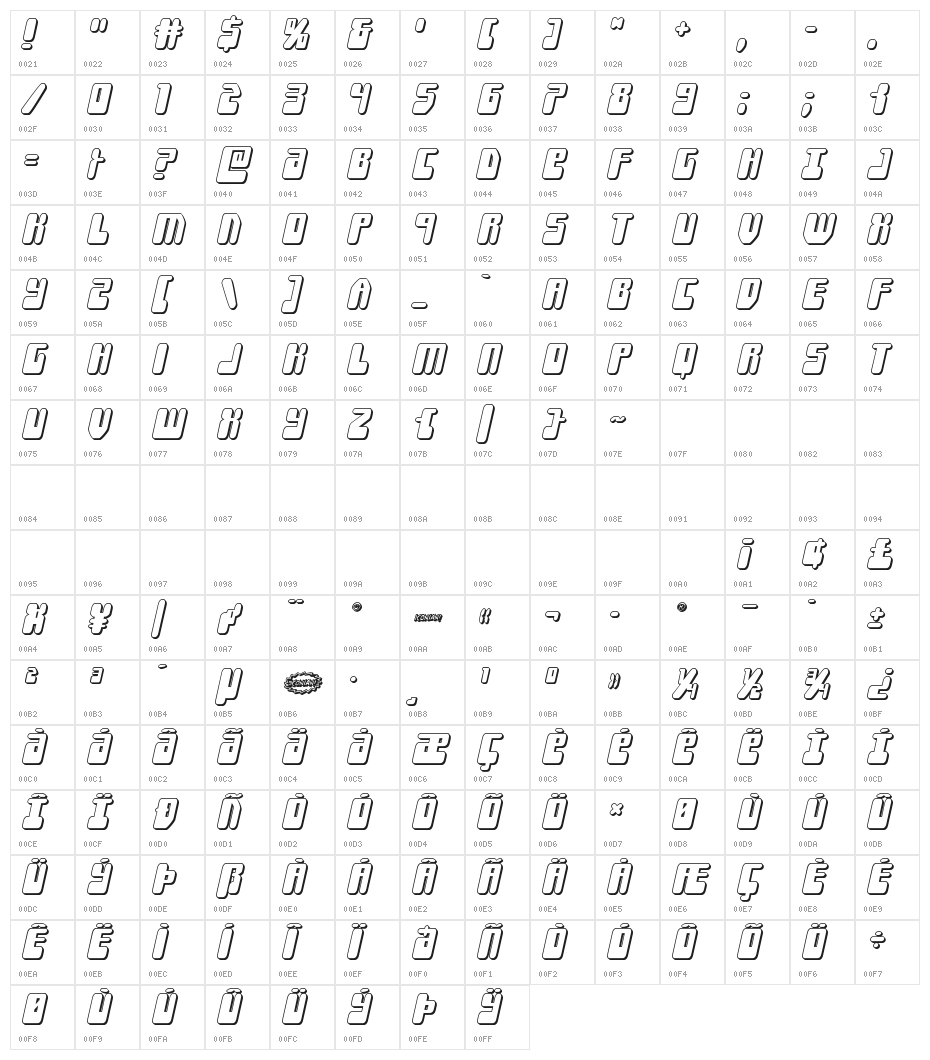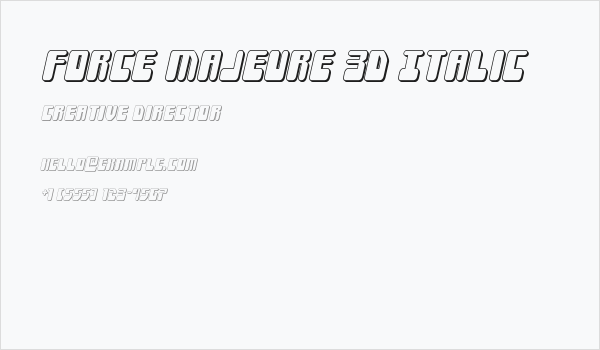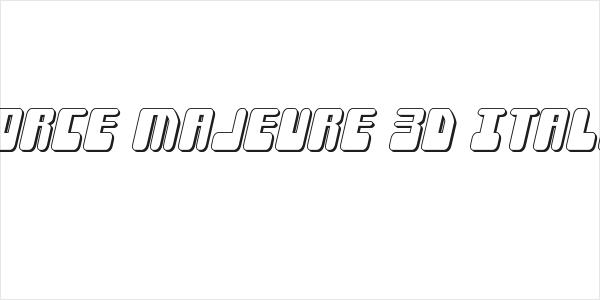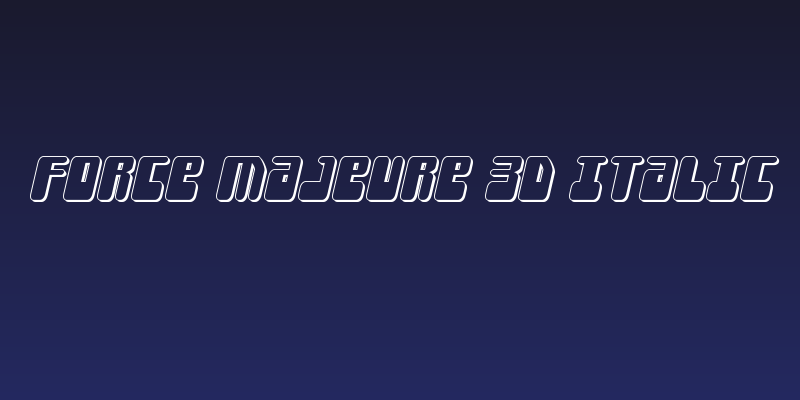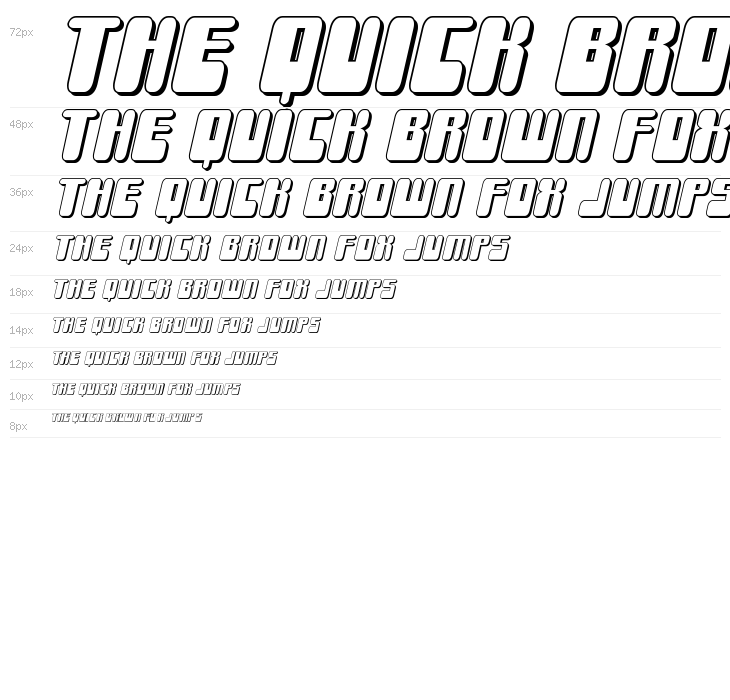
Force Majeure 3D Italic Font
Force Majeure 3D Italic Description
This font features a bold, three-dimensional design with italicized characters, giving it a dynamic and futuristic appearance. The letters are outlined with a thick black border, creating a striking contrast against the white interior. The geometric shapes and sharp angles contribute to its modern and edgy style. The uppercase and lowercase letters maintain a consistent design, with the numbers and special characters following the same aesthetic. The font's unique 3D effect makes it stand out, suitable for projects that require a bold and eye-catching typeface.